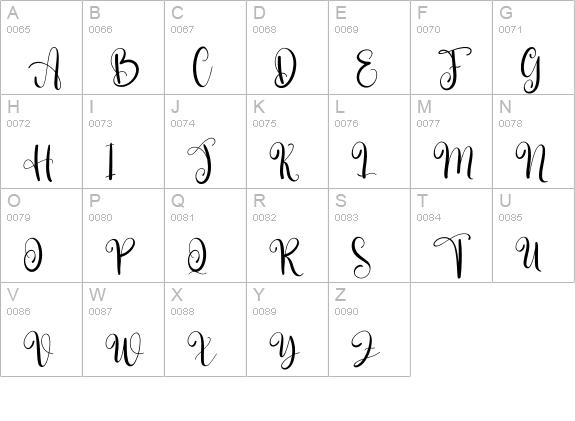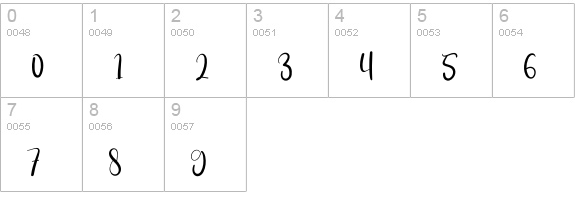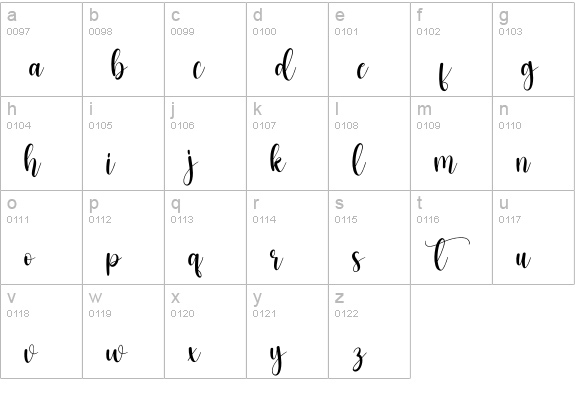
Birthday is a free for personal use font in the Script > Handwritten category, designed by scratchones. It has been downloaded 30 times and is available for Windows, Mac and Linux.
The Birthday font is a fun and festive typeface perfect for adding a touch of celebration to your designs. With its playful and whimsical style, this font is sure to bring a smile to anyone's face on their special day. The Birthday font is freely available to download at FontsMarket.com, making it easy for you to add a personalized and festive touch to your birthday invitations, cards, posters, and more. Let the Birthday font help you create memorable and joyful designs that will make your loved ones feel extra special on their big day.